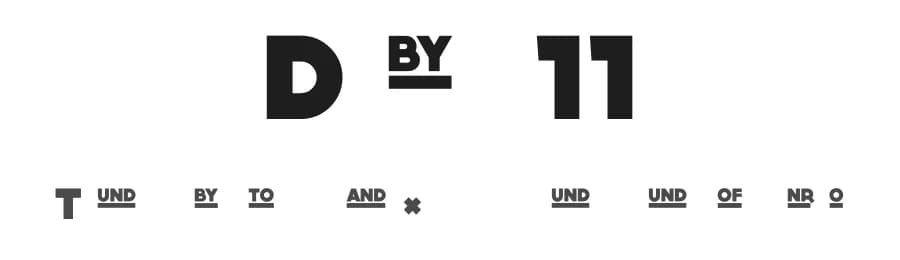
About Dock 11 Font
Dock 11 is a sans-serif font designed by artill.de. It includes 79 glyphs, a black weight, and OTF (CFF) format. Dock 11 is free to download; check the license details on this page before commercial use. Sans-serif fonts like Dock 11 work best for clean body text, user interfaces, branding, and modern layouts.
- Heavy, Clean, Modern, Basic
| Designer | Lukas Bischoff |
Dock 11 Font is a versatile sans-serif font that works for both headings and body text. Pair it with a contrasting serif or slab serif font to add visual interest and a clear distinction between titles and body copy.
Dock 11 Font
by artill.de
Dock 11 Font is a sans serif typeface by artill.de, ideal for logos, invitations, branding, and creative projects.